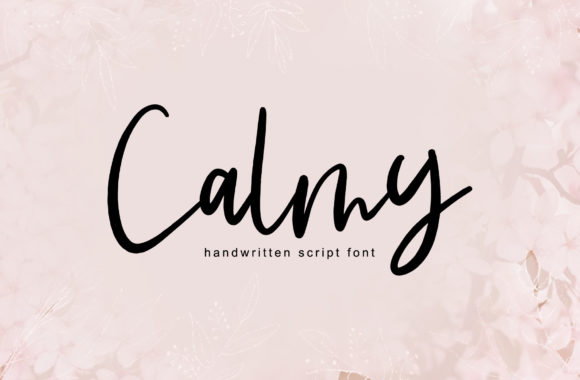
The Elusive Font: A Designer’s Journey with Calmy
I still remember the design project that led me to discover the beautiful Calmy font. I was working on a luxury branding project for a high-end client, and I was struggling to find the perfect font that would convey the desired level of sophistication and elegance. The client had a very specific vision in mind, and I was determined to deliver. After hours of searching through font libraries and testing various options, I stumbled upon Calmy, and it was love at first sight!
An Honest Review of Calmy Font
So, what makes Calmy so special? Let’s dive into the good stuff and some minor quirks I’ve encountered.
What I Love About Calmy ✨
- ✅ Simple, yet elegant and sophisticated
- ✅ Asymmetrical and relaxed handwritten feel
- ✅ Characters that dance along the baseline add a touch of whimsy
- ✅ Perfect for luxury branding, packaging, and high-end designs
Some Minor Quirks 🤔
- ⚠️ Limited use in very formal or traditional designs
- ⚠️ May not be the best choice for body text or long paragraphs
The Story Behind Calmy Font
Calmy was designed by a talented type designer who aimed to create a font that would evoke a sense of relaxation and luxury. The designer’s inspiration came from the smooth, flowing lines of handwritten scripts and the elegance of high-end typography. The result is a font that’s both sophisticated and approachable.
Q: What is the best use for Calmy font?
A: Calmy font is perfect for luxury branding, packaging designs, and high-end projects where sophistication and elegance are key.
Q: Can I use Calmy for body text?
A: While Calmy is a beautiful font, it’s not ideal for body text or long paragraphs. It’s best used for headlines, titles, or short text elements.
Q: Is Calmy a script font?
A: Calmy is a handwritten font with a relaxed, asymmetrical feel. While it’s not a traditional script font, it does share some similarities with scripts.